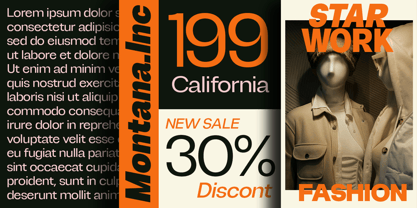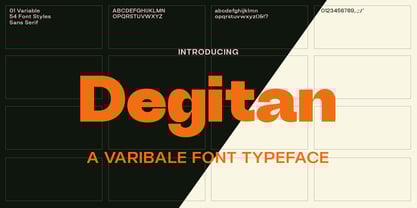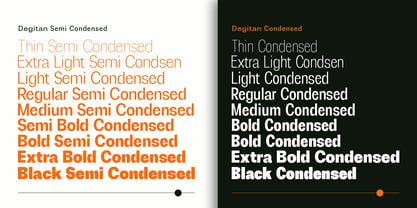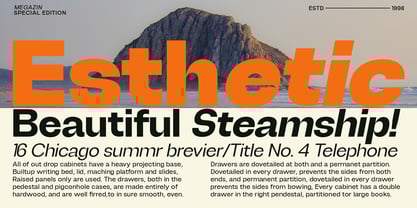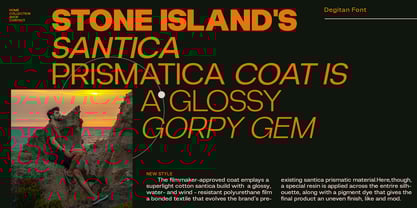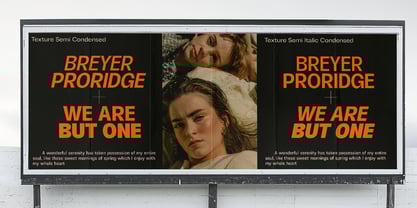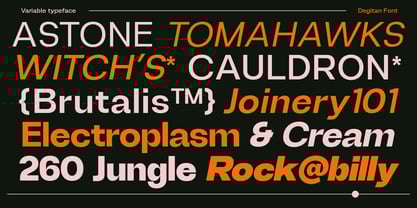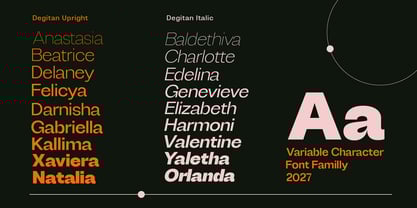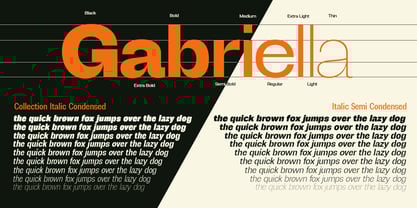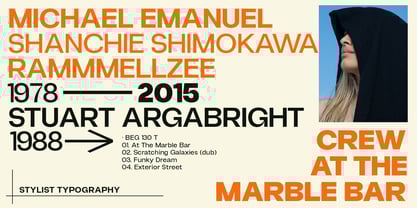
Degitan
by Propertype
The Degitan Font Family was designed by Nadia Auliana and published by Propertype. Degitan contains 53 styles and family package options.
Degitan is a high contrast typeface inspired by transitional and contemporary typefaces. The font expands its usage by providing weights ranging from thin to black. Natural curves, swollen stems and slants, grow in character as the font increases in weight. While thinner weights have lowered contrast and optical correction to create a warm and soft look. Featuring beautiful italics, excellent weights, and extensive language support.
Degitan also comes in two versions of Variable Regular and Italic to make it easy for designers to explore and refine beautiful designs, revealing many visual tones and hidden secrets.
Degitan excels in display settings such as headlines, titles, branding projects, Logo designs, packaging, magazine headlines, advertisements, short or long texts.